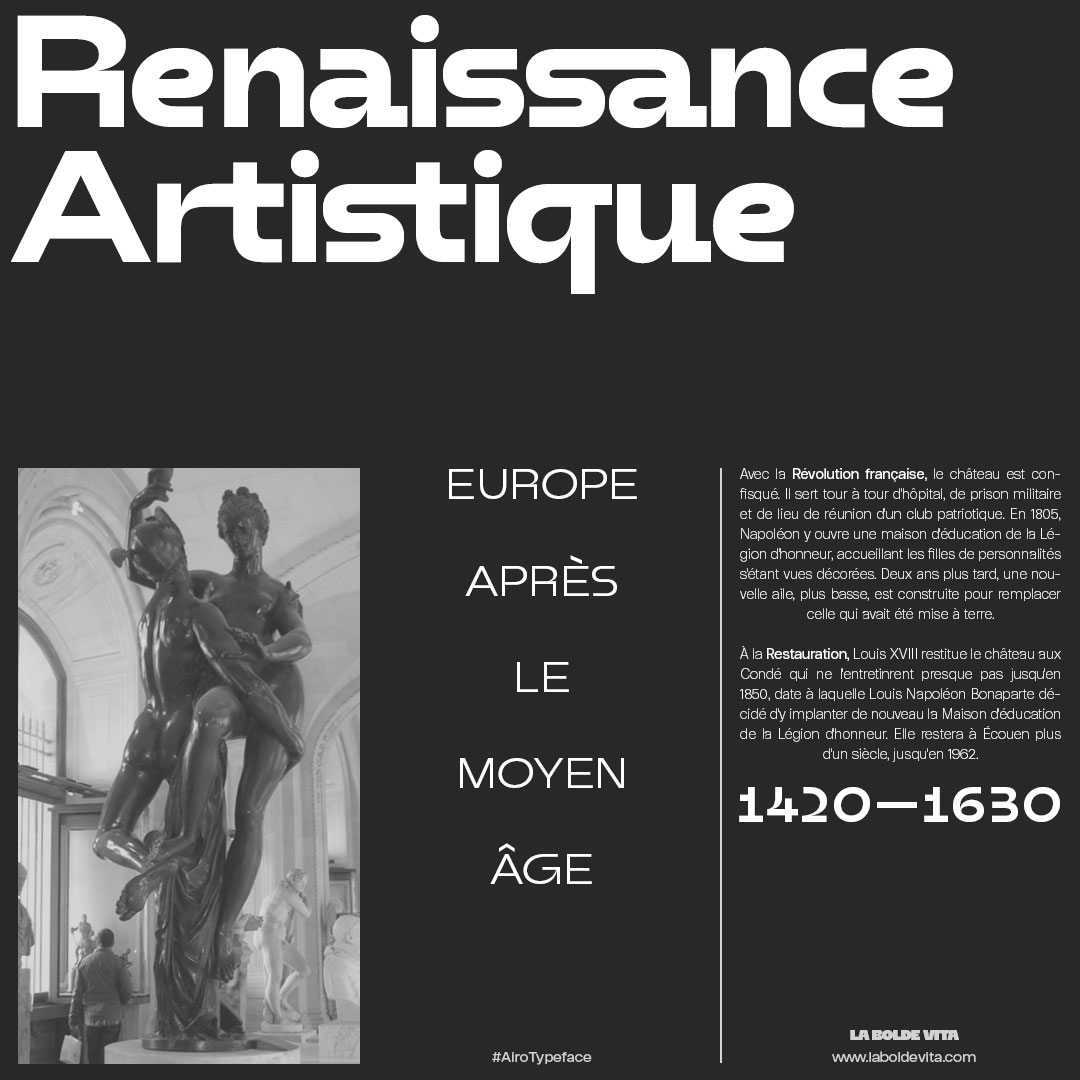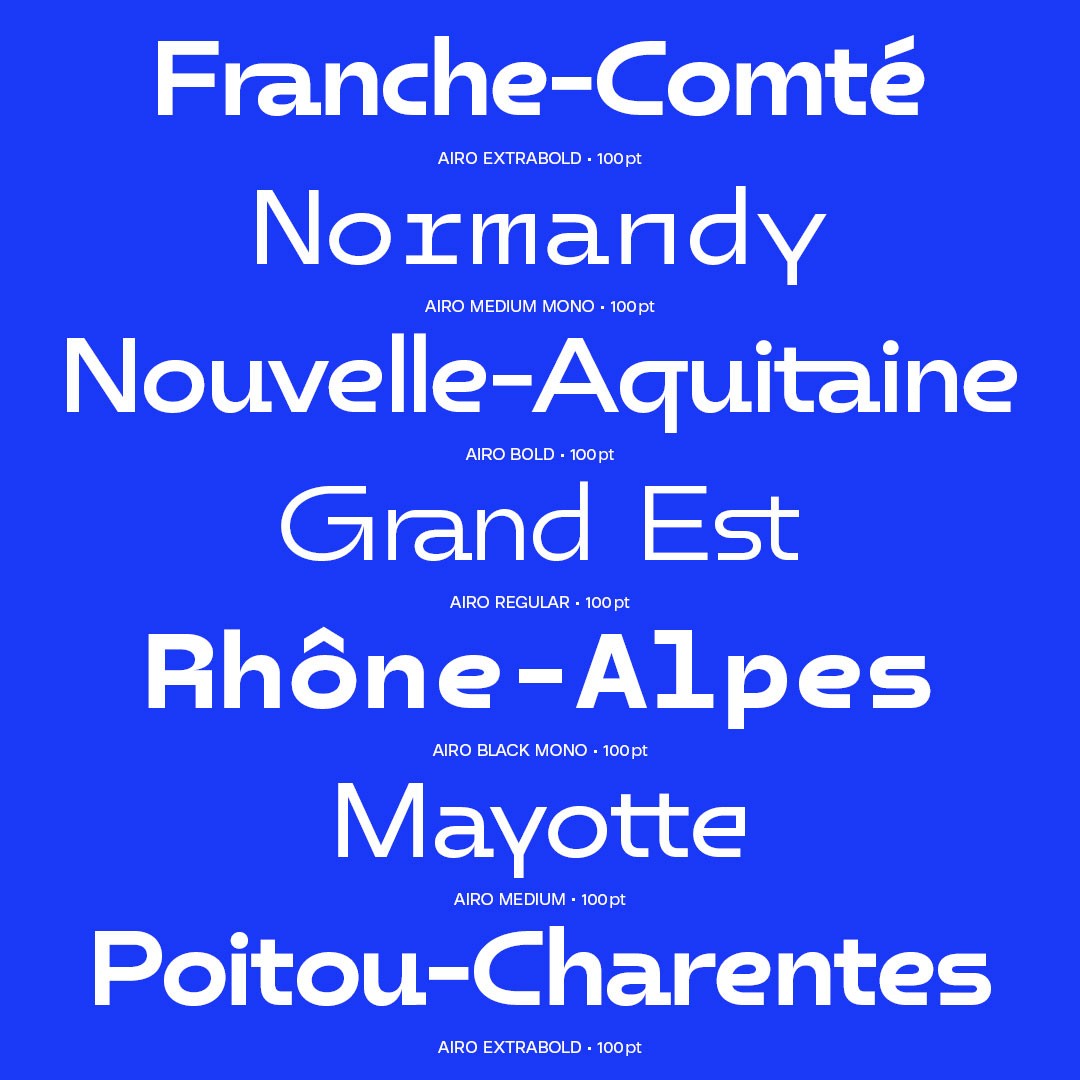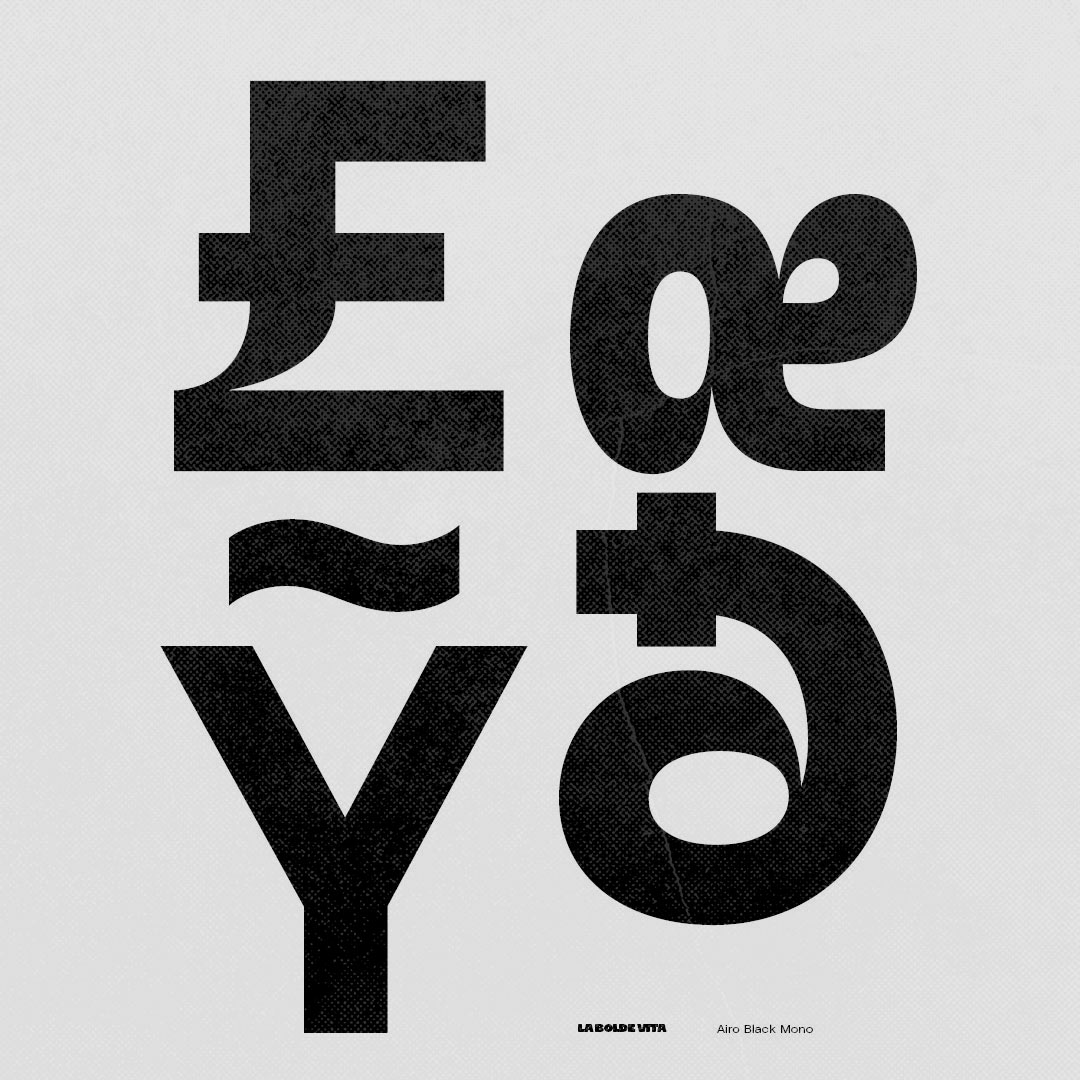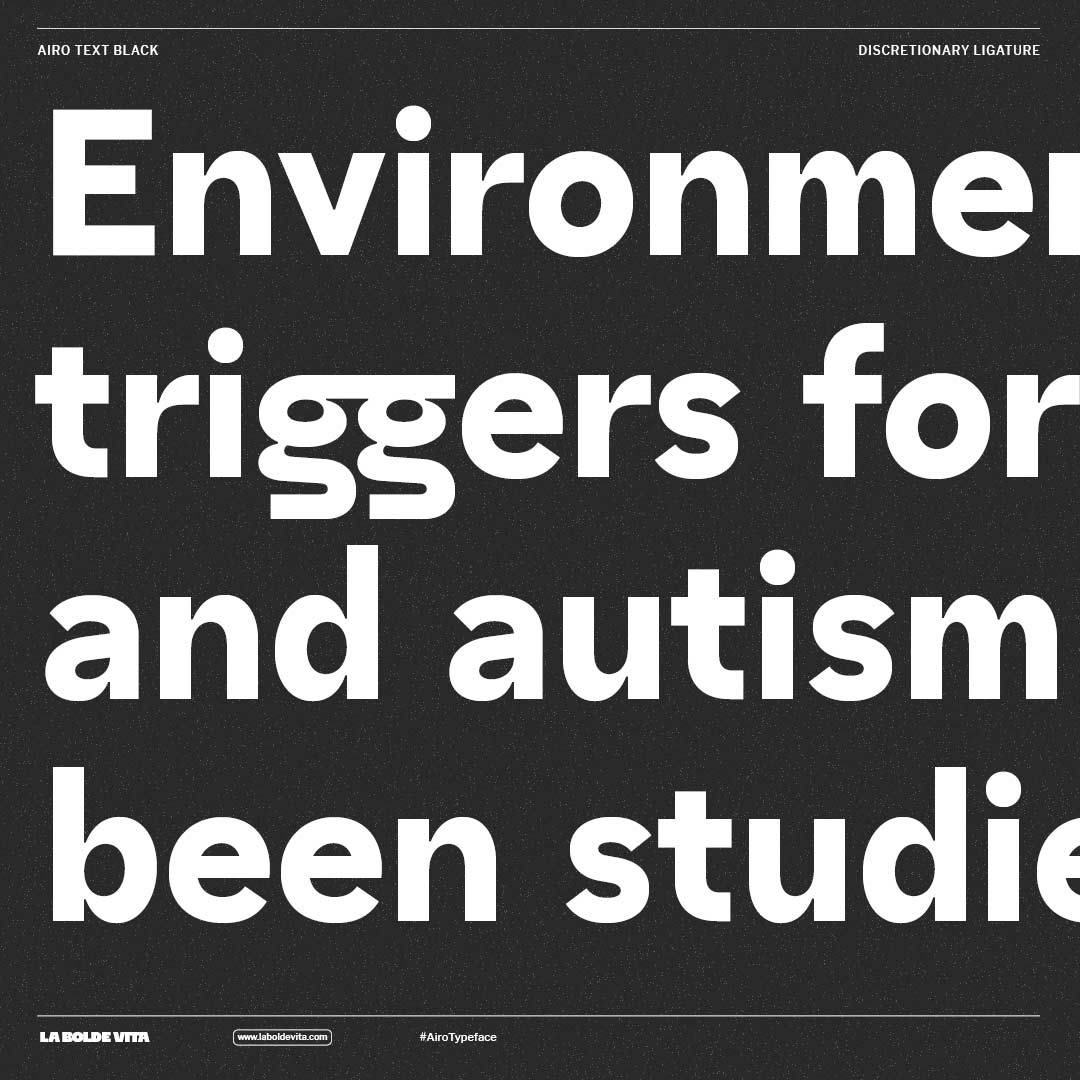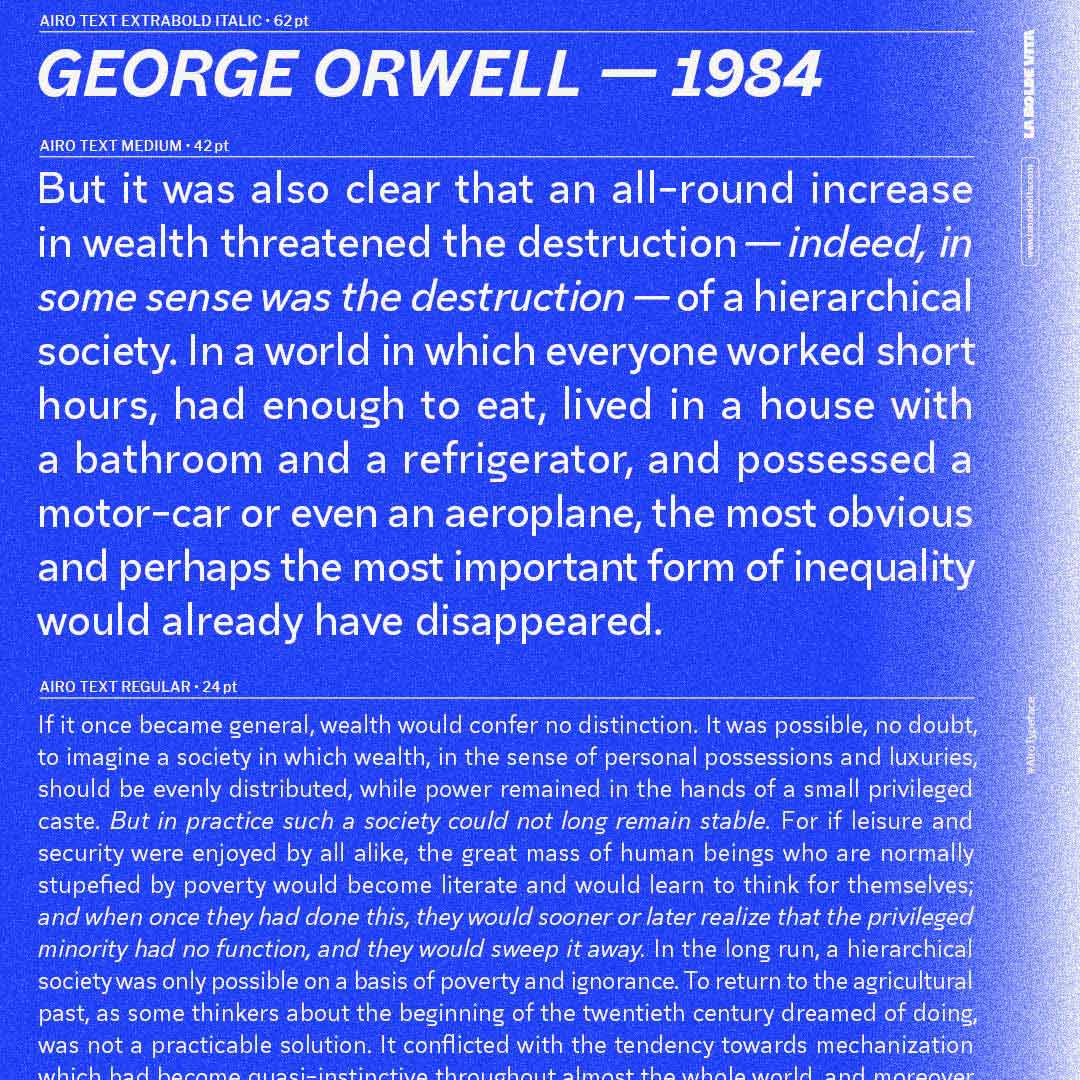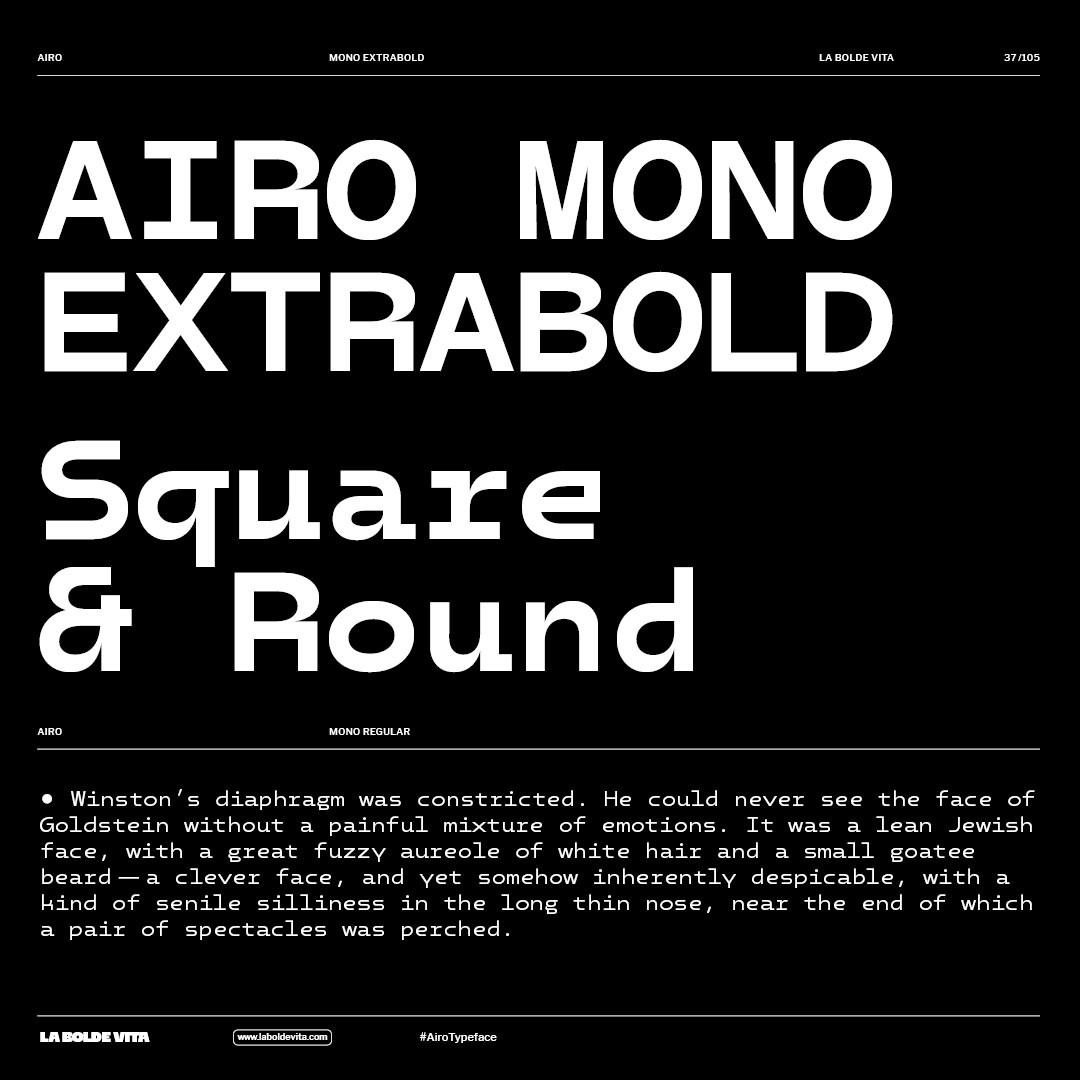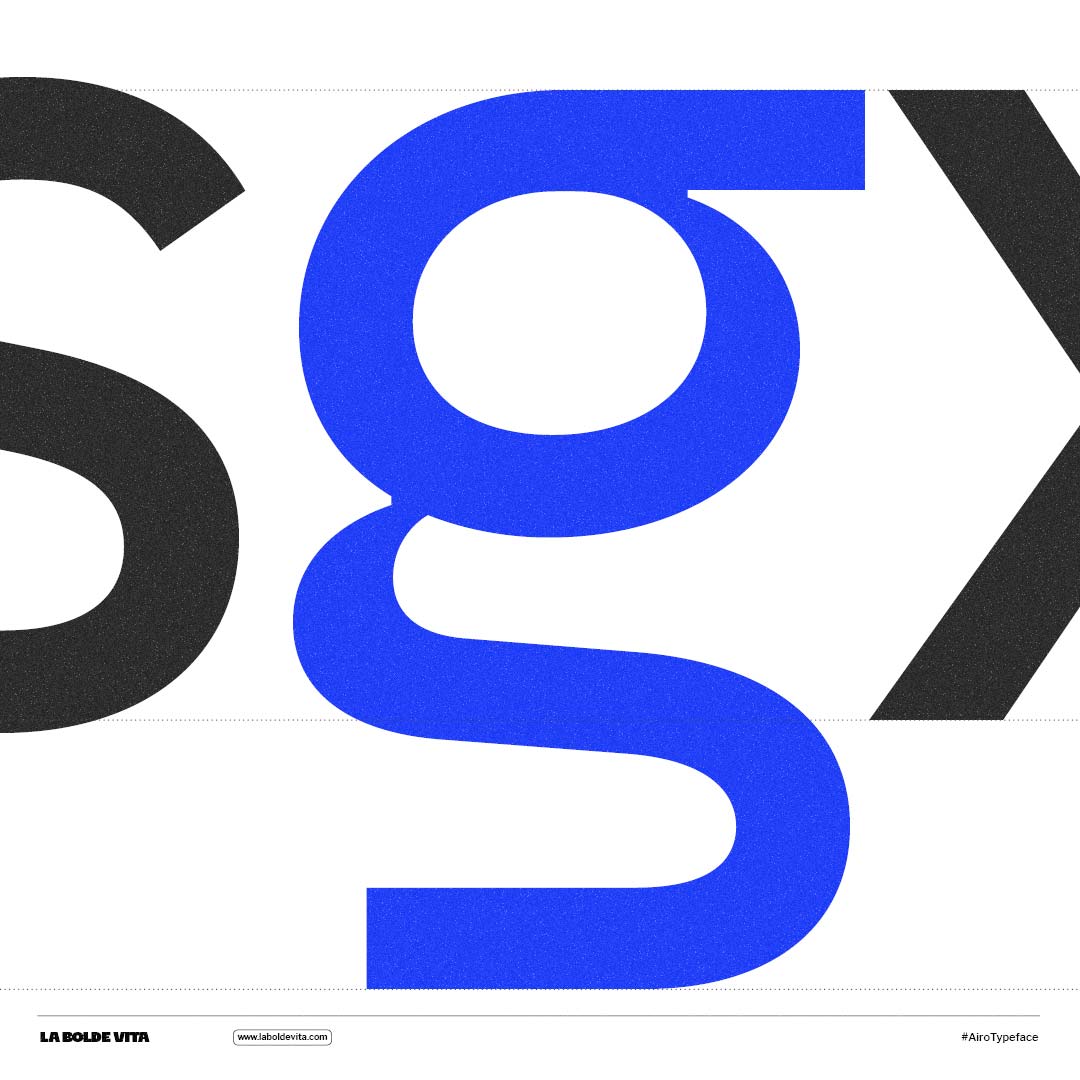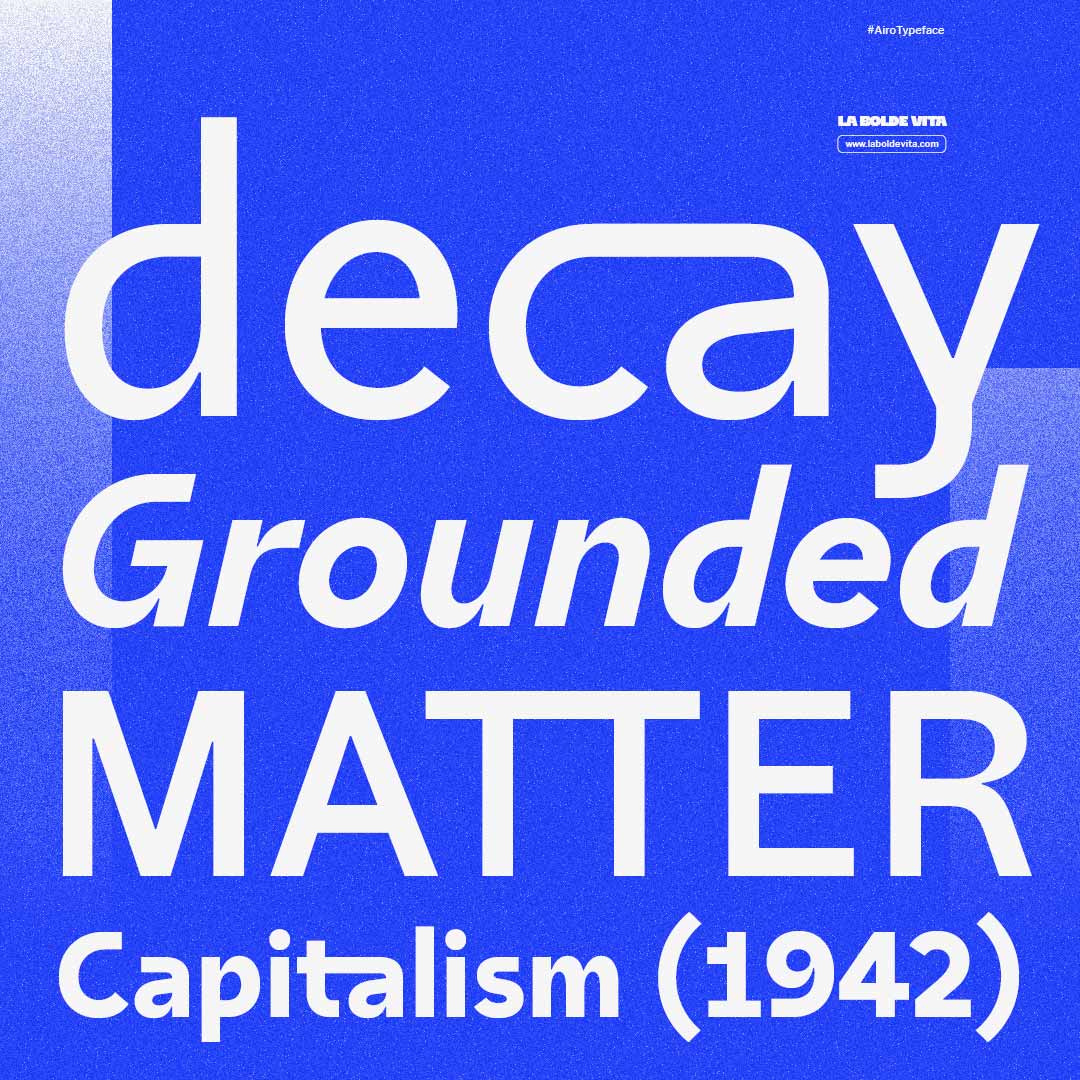
Airo was born out of the aesthetics of two single letter sketches, the upper- and lowercase “g” — featuring generous width, monolinear strokes, and high-contrast links. These had a generous width, a monolinear stroke with high contrast links and were an overall mixture of sturdy and constructed but lively appearance.
The final design evolved into expressive, generously proportioned display styles with striking shapes and a unique personality. A black weight and accompanying mono styles explore width and contrast and technoid-organic interplay. The later on added Airo Text retains the spirit of its display companion — especially in the round forms — but uses simplified, more organic shapes, narrower proportions, reduced contrast, ink traps for improved legibility and ultimately italic styles. Both subfamilies share exact weights and vertical metrics for seamless pairing.
Airo shines at large sizes, with ligatures and alternates adding a confident charm to titles and wordmarks. It also works well in short texts and alongside neutral fonts. Airo Text stands confidently on its own — ideal for editorial design, contemporary branding, and versatile applications, while offering stylistic alternates that echo the display’s expressive tone.
Extended in 2021
Released in 2019
3 Subfamilies
Alternate "square" letters
628 Glyphs (Display and Mono)
Latin Extended-A
Airo
Airo Mono
Airo Text
Airo basically comes in two looks: The fluid and warm style, which is standard, and a more angular, hard appearance. The latter is accessible through various Stylistic Sets, letting you customize the Look & Feel of basic letters, some special glyphs and quotation marks.
6 STYLISTIC SETS
Case sensitive forms
Discretionary ligatures
Circled Numbers
All styles contain an extensive set of glyphs (689 for Text and 628 for Display and mono styles), covering the Latin Extended-A Unicode Range and various styles of numbers, currency signs, punctuation, arrows and various symbols that will might come in handy.
Thanks to the coverage of the Latin-Extended-A Unicode range, Airo supports most modern Latin languages. Actually, containing some additional accented glyphs, you can use Airo in 215 languages. If you still think your language isn't supported, you can look up the full list below or in the specimen.